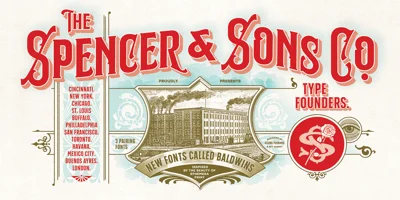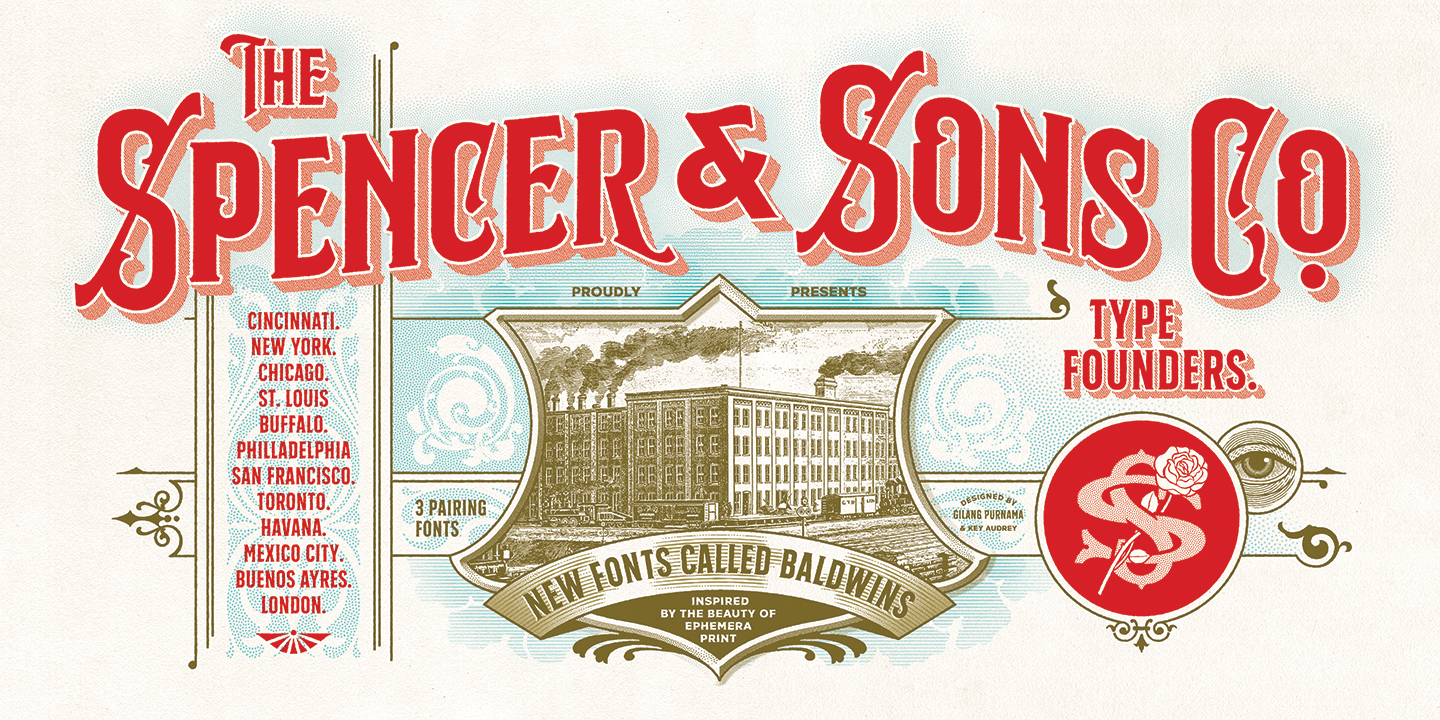
S&S Baldwins Font is ideal for vintage barbershop signage, classic menswear branding, traditional gentlemen's clubs, heritage whiskey labels, old-fashioned cigar packaging, timeless pocket watch advertisements, distinguished shaving products, and authentic Victorian-era reproductions.
This font is exciting because it preserves the dignified masculinity and craftsmanship heritage of the Victorian gentleman's era with bold, distinguished letterforms that evoke quality, tradition, and uncompromising standards. The S&S Baldwins Font captures the essence of old-world refinement and masculine elegance, transforming ordinary text into distinguished statements of timeless class and traditional craftsmanship.
The S&S Baldwins Font family includes gentleman's variations such as Regular, Bold, Light, Italic, Vintage, Condensed, Extended, and Heritage versions, providing traditional brand designers with comprehensive tools to create authentic Victorian typography that honors masculine heritage and classical craftsmanship traditions.
Honor traditional craftsmanship with S&S Baldwins Font Free Download that brings Victorian gentleman's elegance to every heritage design project. This distinguished typeface combines historical authenticity with contemporary functionality, making it perfect for traditional menswear brands, heritage products, and establishments celebrating masculine traditions and quality craftsmanship. The font's dignified character design ensures your message conveys reliability and tradition while maintaining excellent readability across all applications. Whether you're developing traditional barbershop branding, creating heritage product packaging, or designing materials that celebrate masculine traditions, S&S Baldwins Font delivers the distinguished typography that resonates with gentlemen who appreciate quality, tradition, and the timeless appeal of classical masculine elegance. Its versatile design works beautifully across digital and print media while preserving the Victorian dignity that makes traditional communications feel genuinely authentic and worthy of the respect that comes from generations of proven craftsmanship and unwavering quality standards.